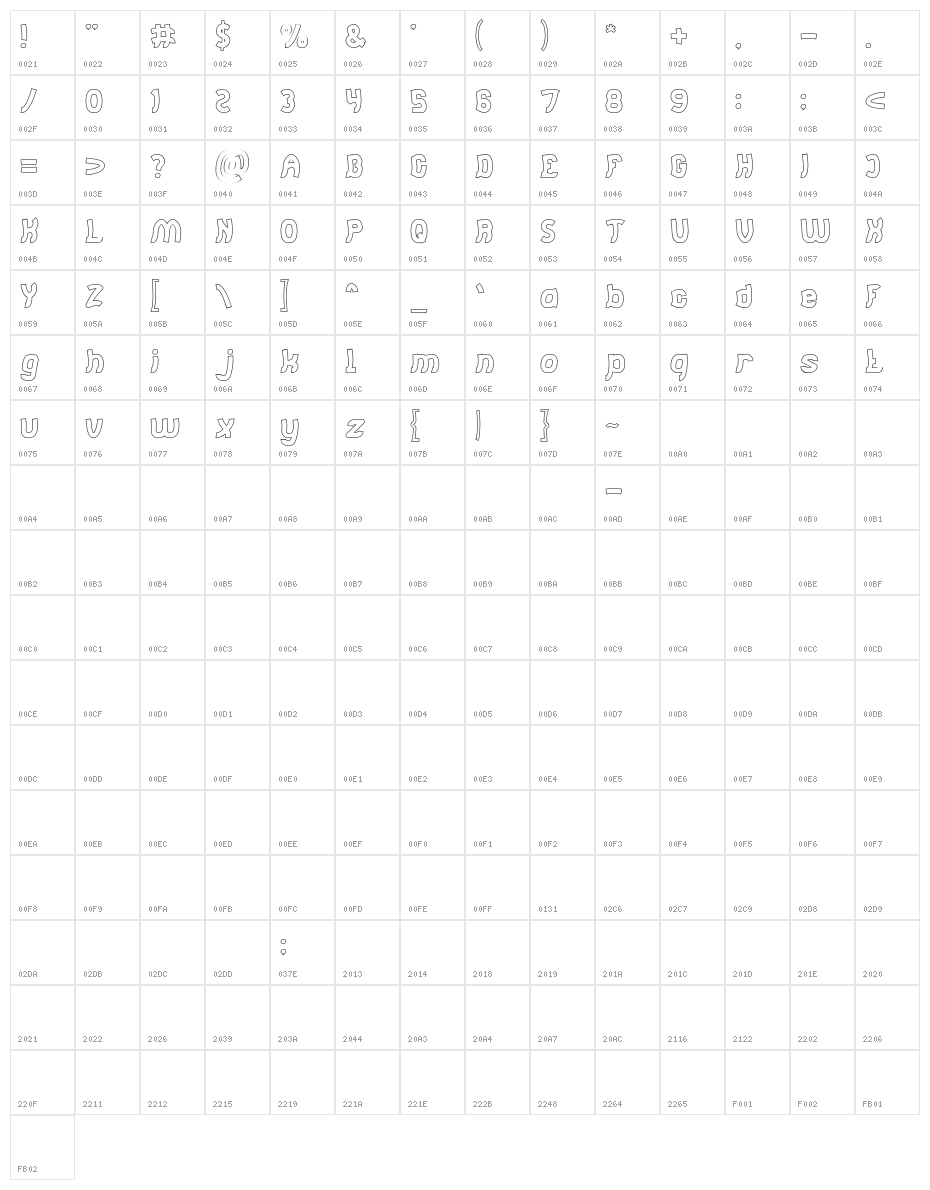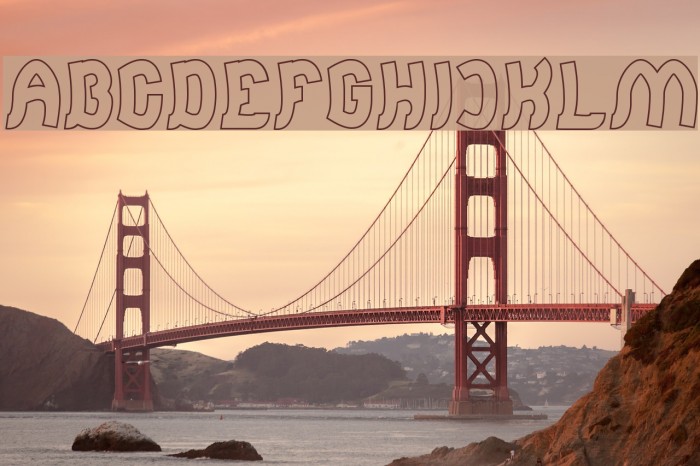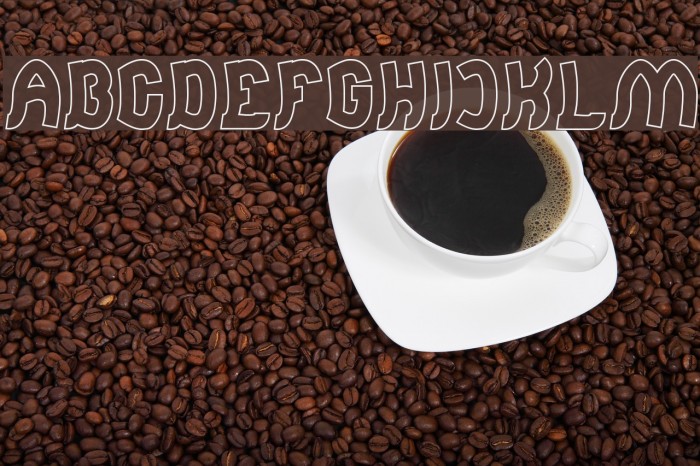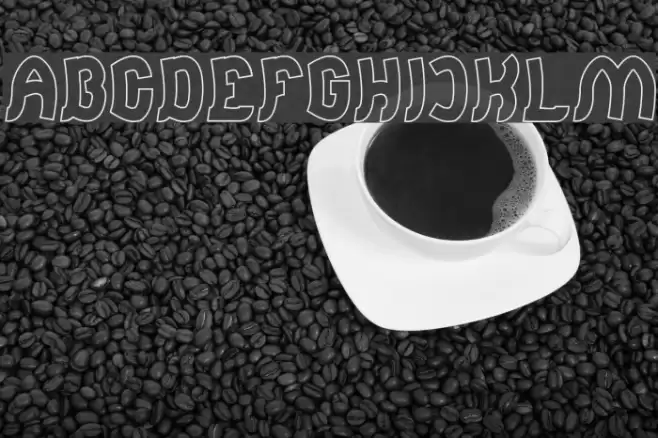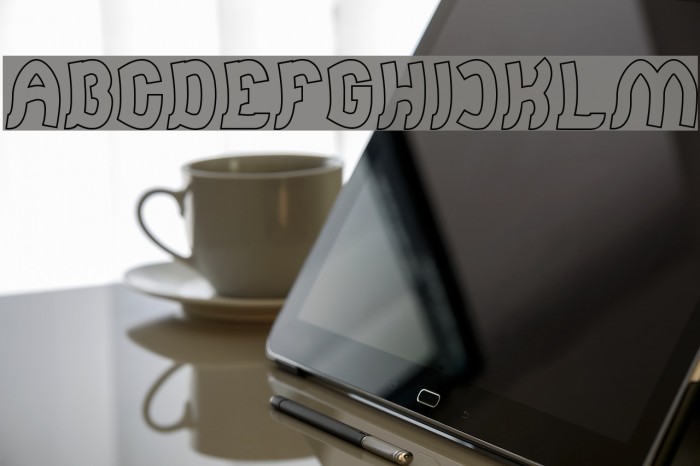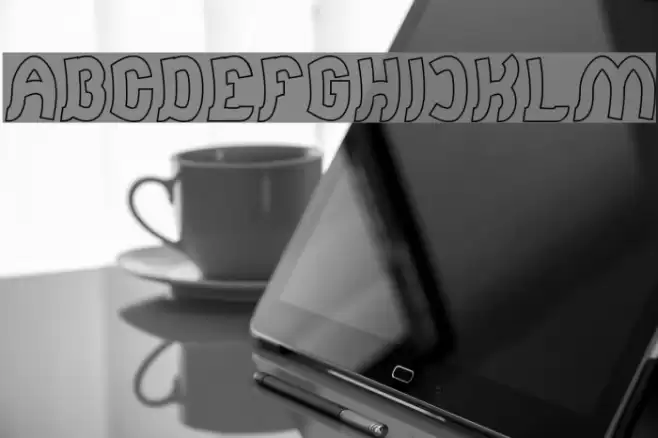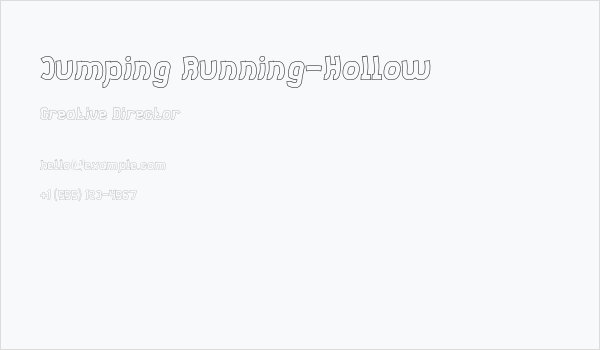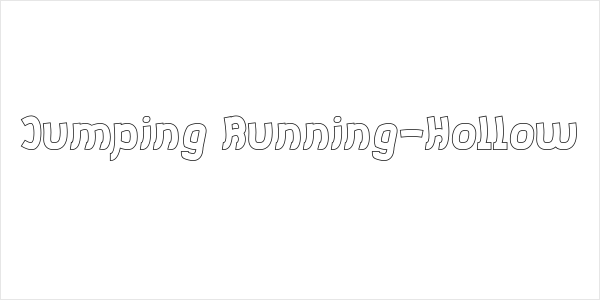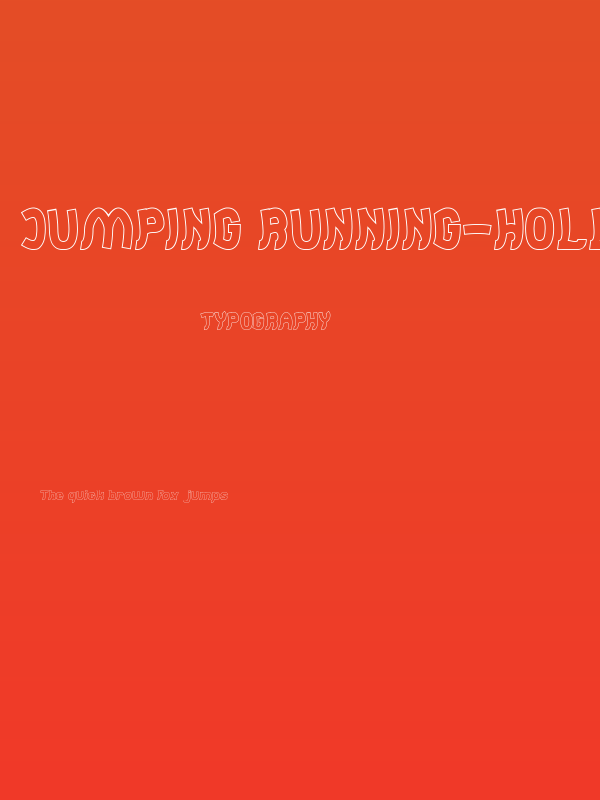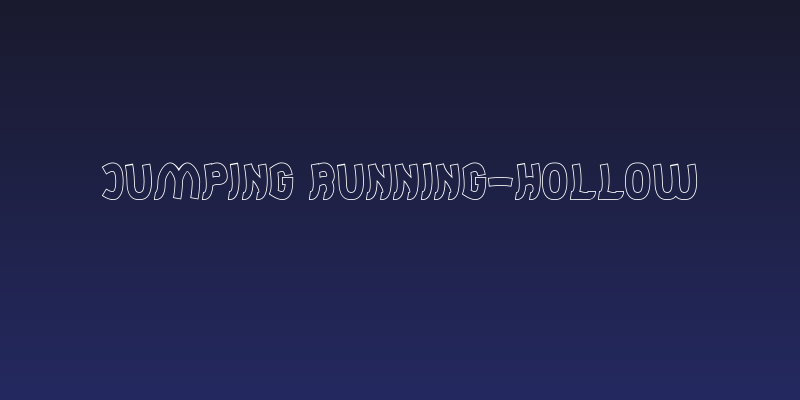
Jumping Running-Hollow Font
Jumping Running-Hollow Description
This playful and dynamic font features a hollow, outlined style that gives it a lively and energetic appearance. The characters are bold and rounded, with a whimsical touch that makes them stand out. The uppercase and lowercase letters maintain a consistent style, with a slight bounce in their form, adding to the font's animated feel. The numbers and special characters are equally expressive, making this font suitable for creative and informal designs. Its unique style is perfect for projects that require a fun and engaging visual element.
| Overall Style | Playful, Energetic, Whimsical |